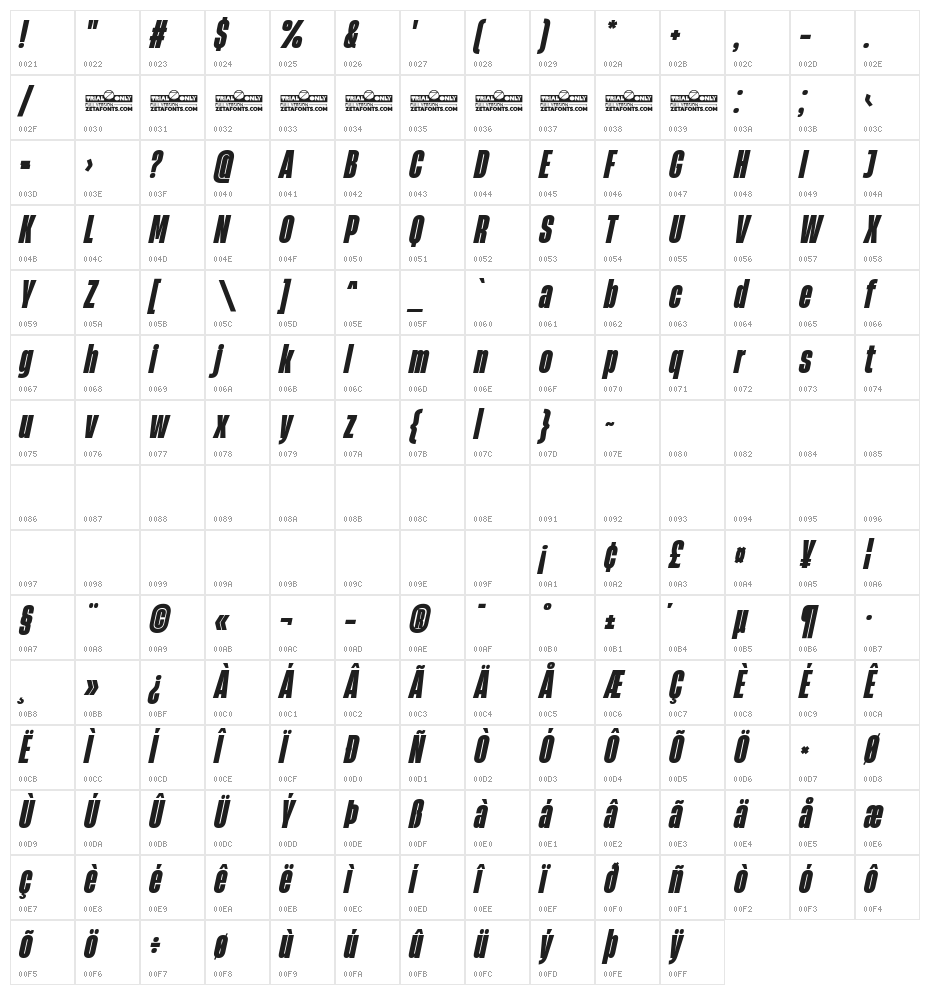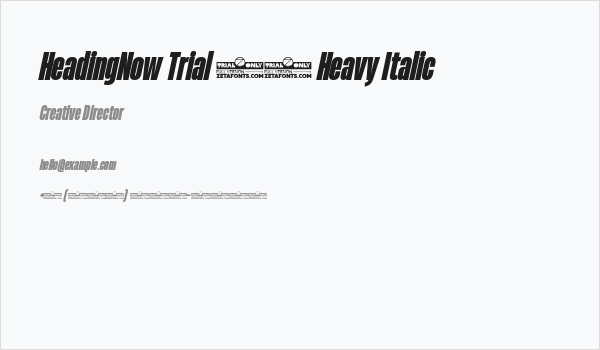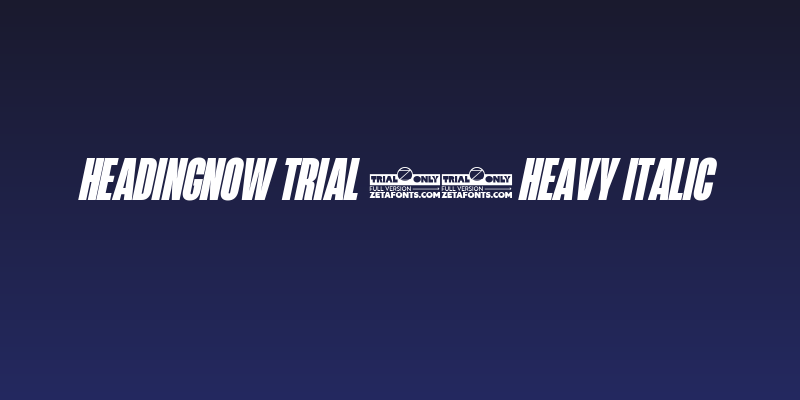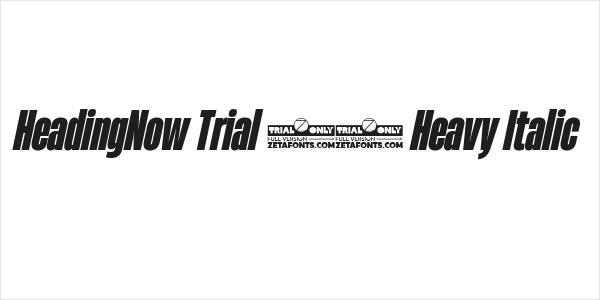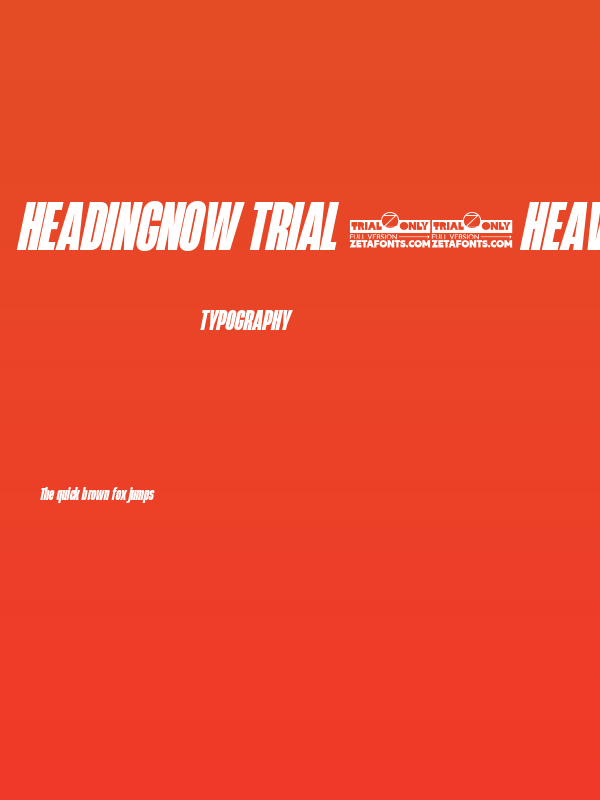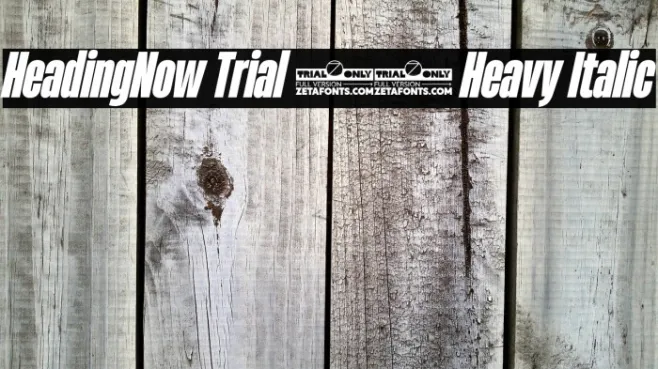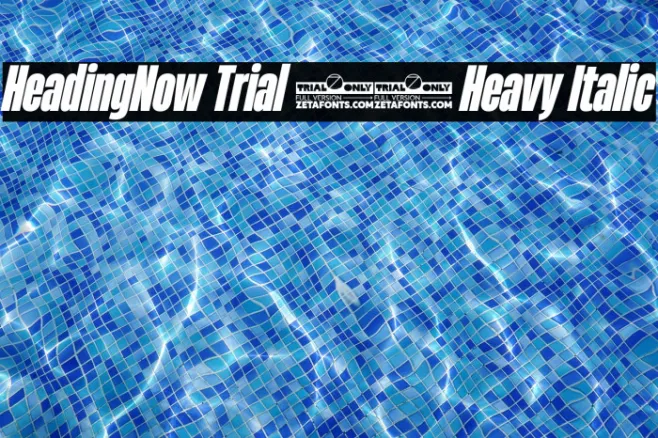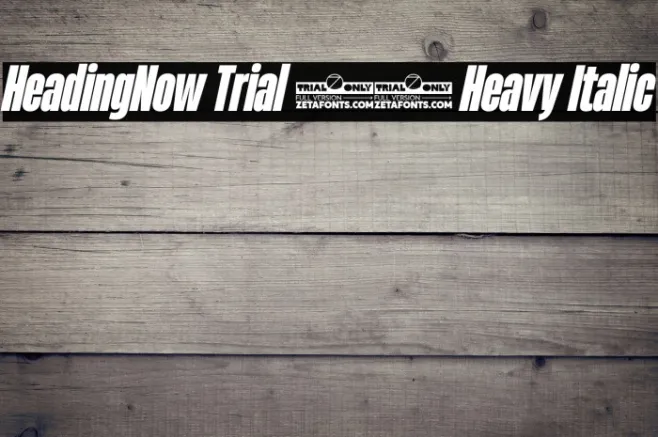
HeadingNow Trial 38 Heavy Italic Font
HeadingNow Trial 38 Heavy Italic Description
This font features a bold and dynamic style with a heavy weight and italicized form. The characters are designed with a strong presence, making them ideal for attention-grabbing headlines. The uppercase and lowercase letters maintain a consistent slant, enhancing the italic effect. The numbers and special characters are equally bold, ensuring uniformity across all glyphs. The font's design is modern and sleek, with a slightly condensed width that contributes to its impactful appearance. The character spacing is tight, which adds to the cohesive look of the text. This font is well-suited for projects that require a strong visual impact.
| Proposed Projects | Ideal for headlines, posters, branding, and advertising materials that require a strong visual impact. |